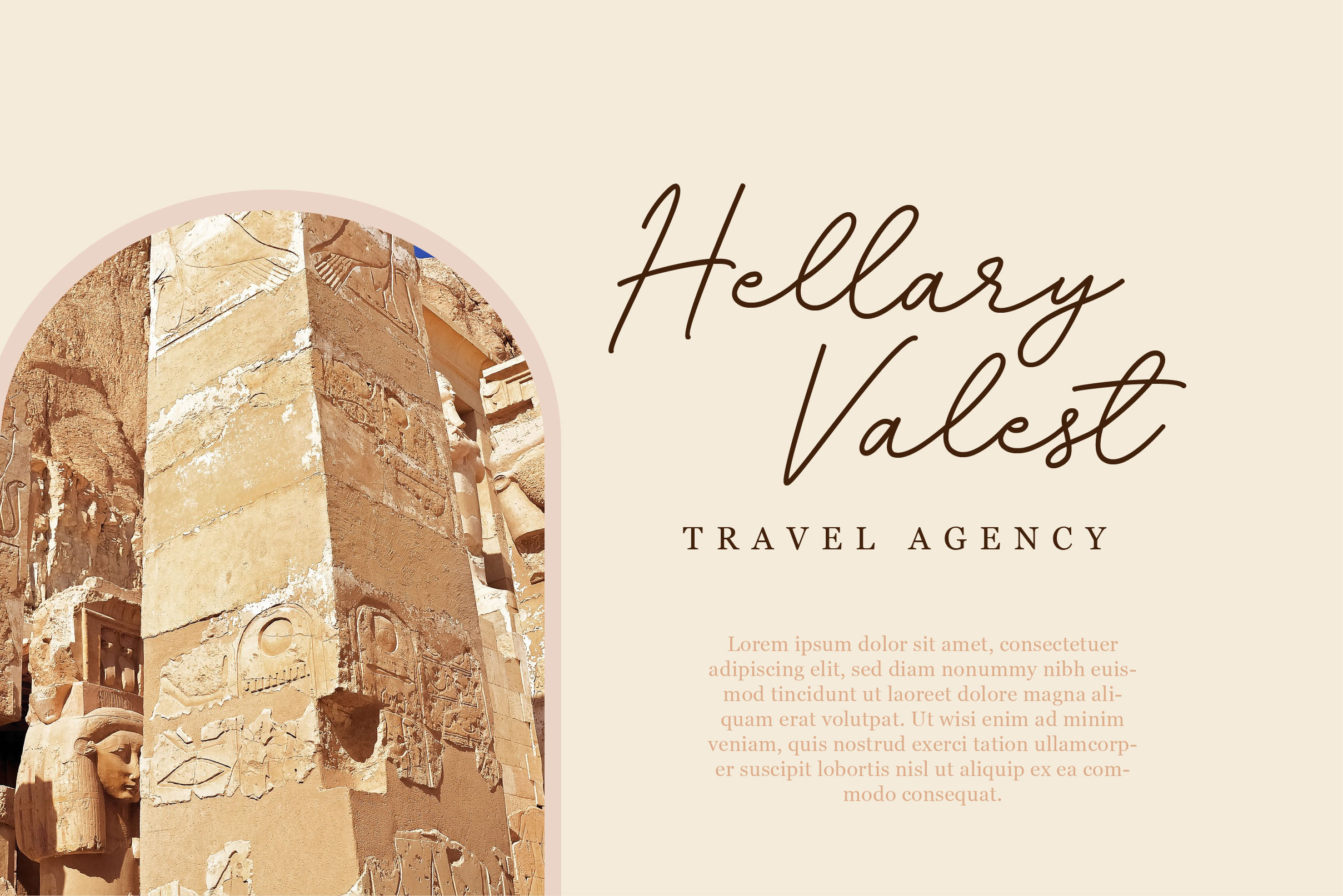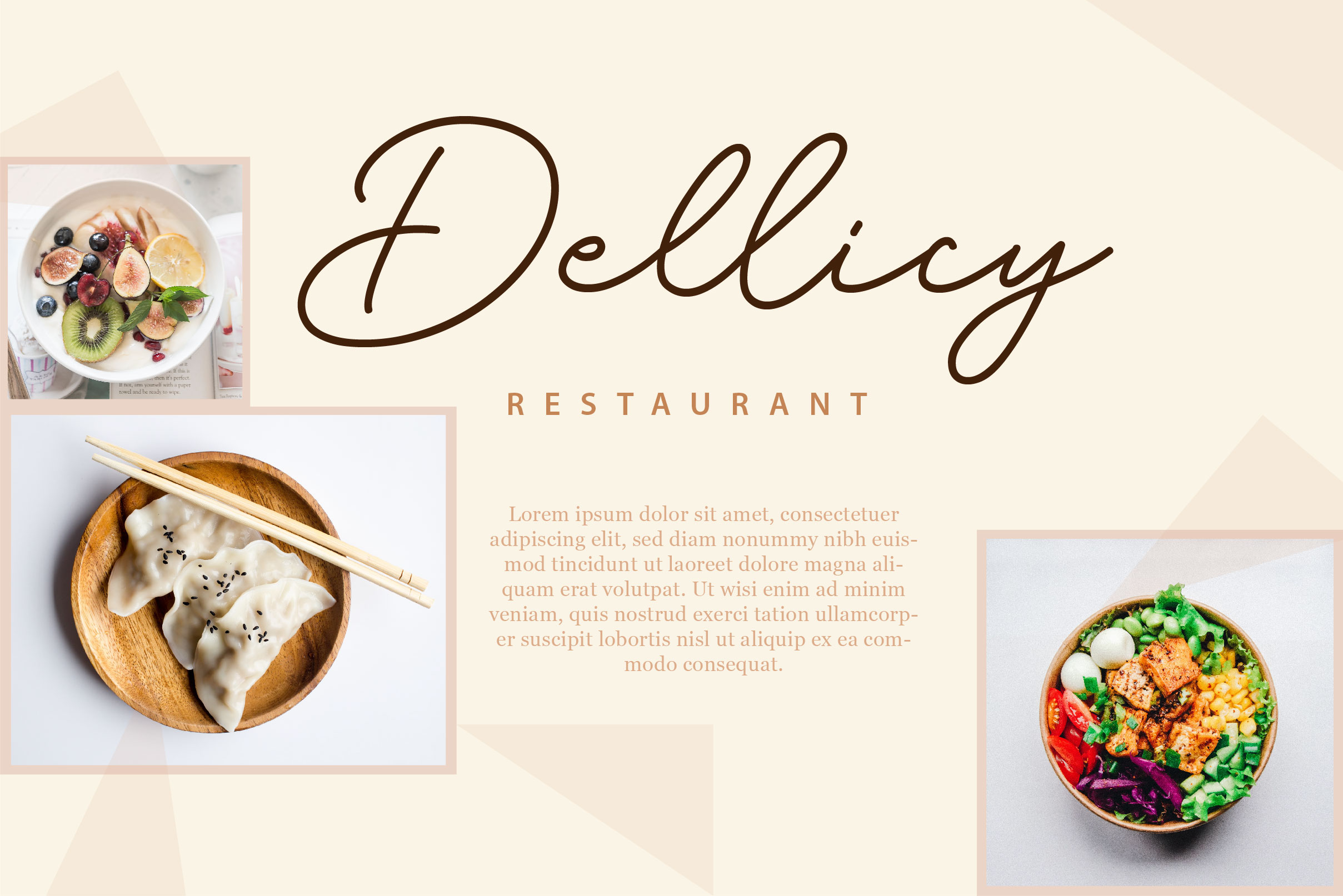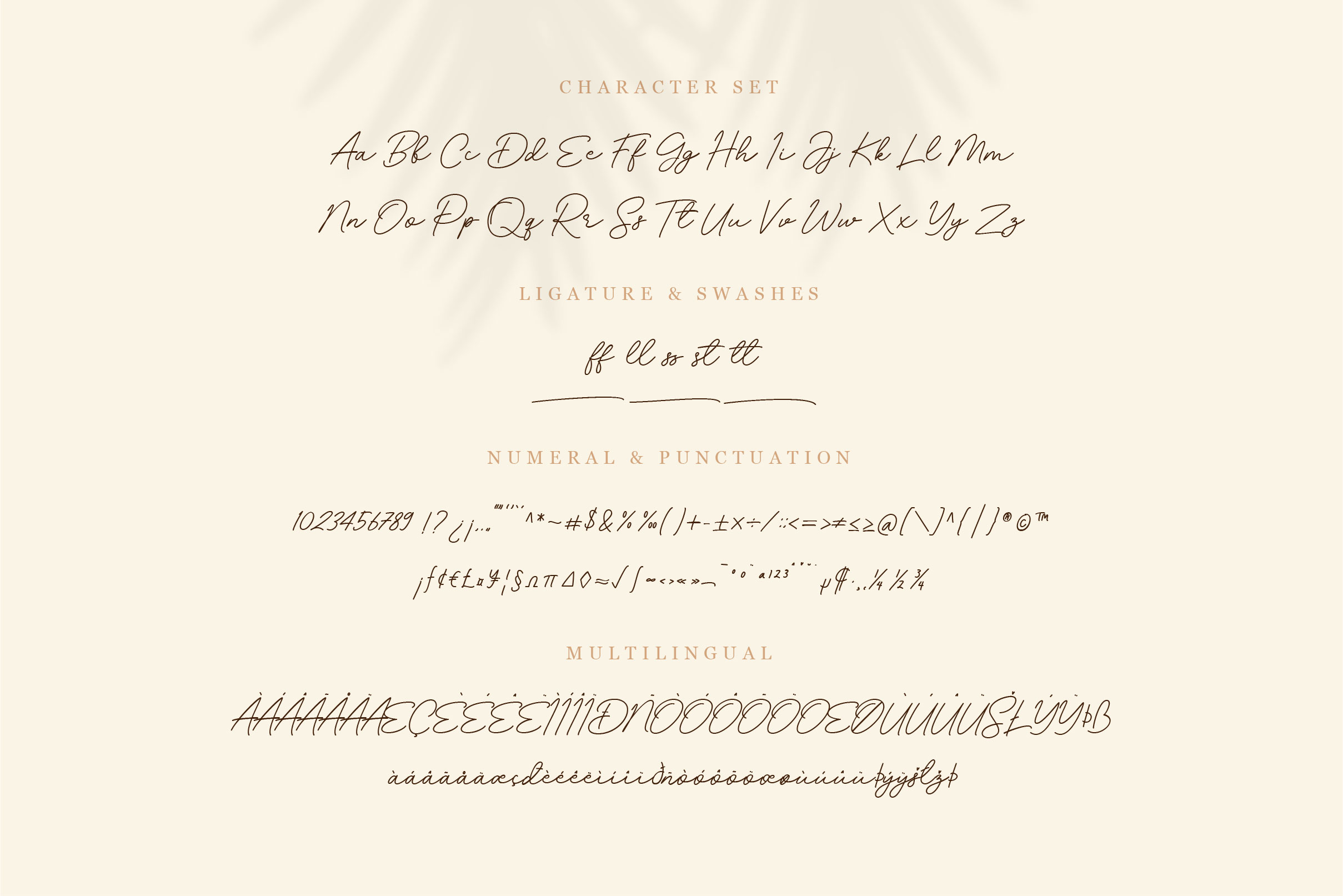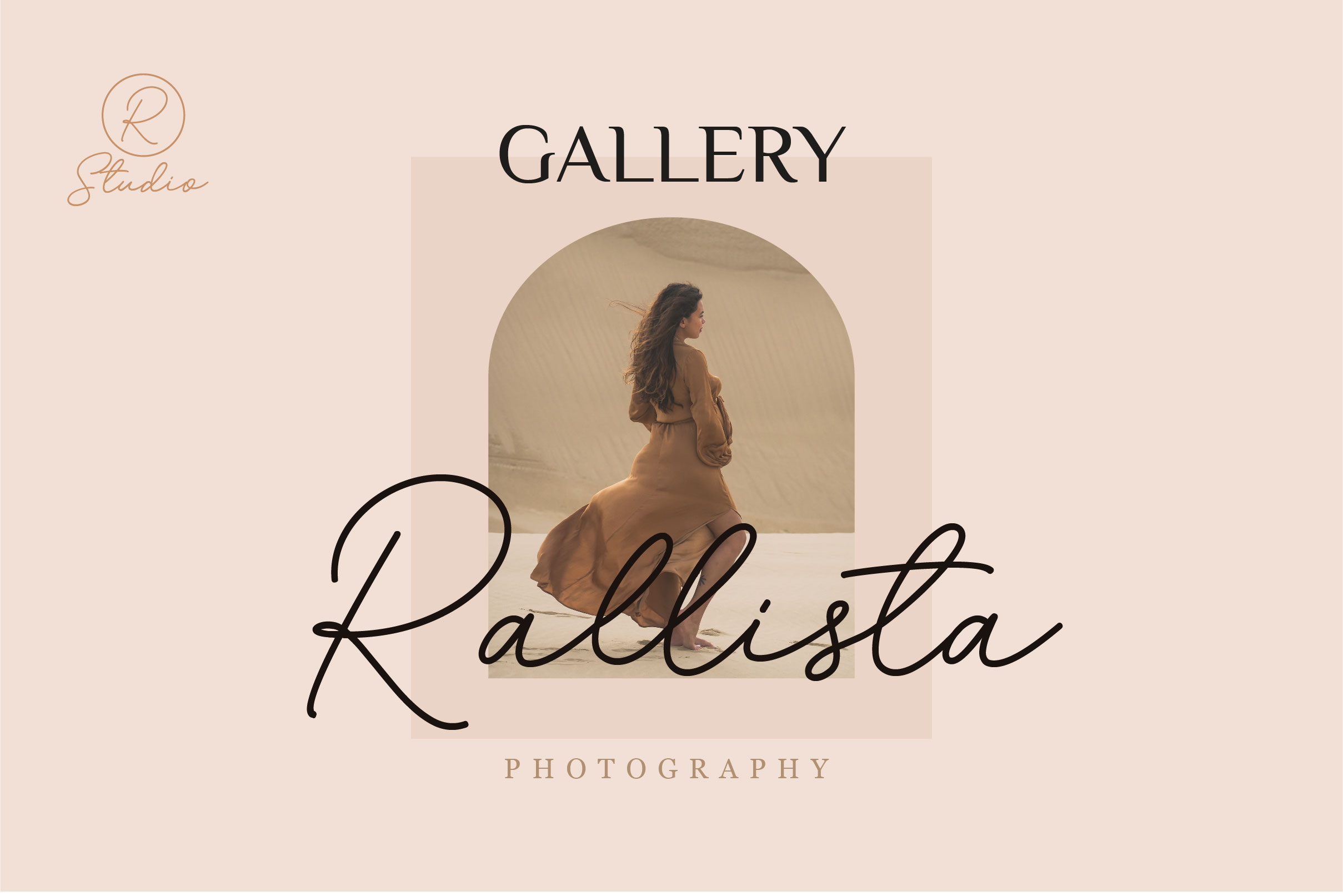
Beristand Monoline Script Font
Beristand Monoline Script Font is a thin lettered and graceful script font. Fall for its ravishing style and use it to create gorgeous wedding invitations, beautiful stationary art, eye-catching social media posts, and much more!